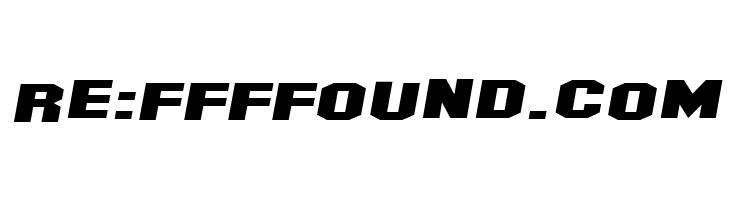
King Commando Expanded Italic Font
- Font: King Commando Expanded Italic
- Weight: Expanded Italic
A bold, geometric font with a modern and industrial style.